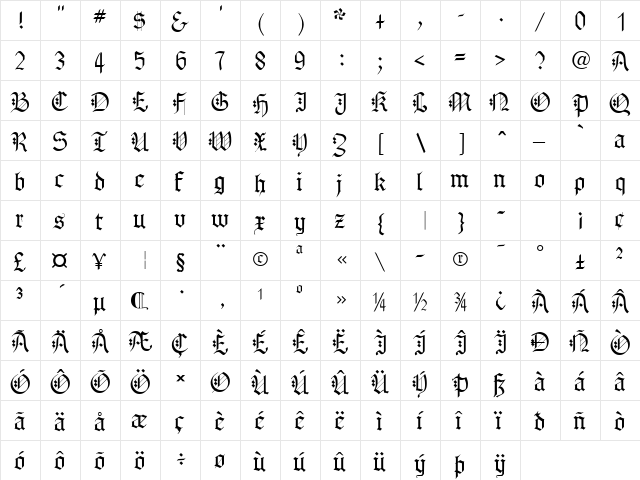
Gothenburg Fraktur UMZ1 Regular
Design Context for Gothenburg Fraktur UMZ1 Typeface
Gothenburg Fraktur UMZ1 draws on the rich tradition of blackletter calligraphy, with dense, angular strokes that evoke medieval manuscripts and old-world craftsmanship.
Well-suited to band logos, craft beer branding, tattoo lettering, and heritage-themed identities.
Font Pairing: Pair with a clean neutral sans-serif for body copy to let Gothenburg Fraktur UMZ1's character lead without overwhelming the composition.
Pro Tip: Use Gothenburg Fraktur UMZ1 sparingly at large sizes. Even a single word set in blackletter can define the visual register of an entire design.